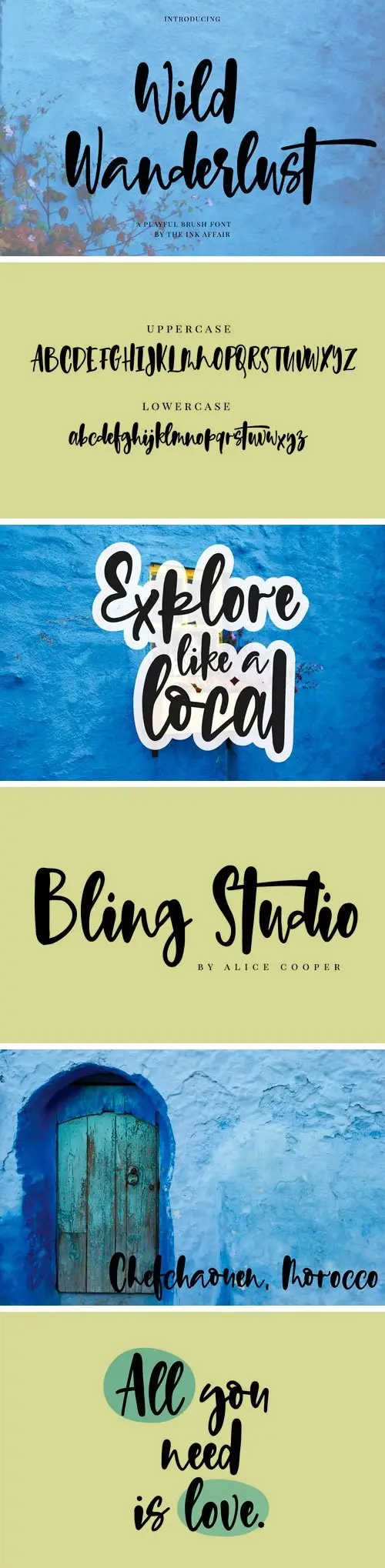
Wild Wanderlust Font
Introducing Wild Wanderlust, a super fun and playful brush font. Wild Wanderlust is perfect for creating logos, social media posts, quotes, branding, invites, wedding stationery and so much more!